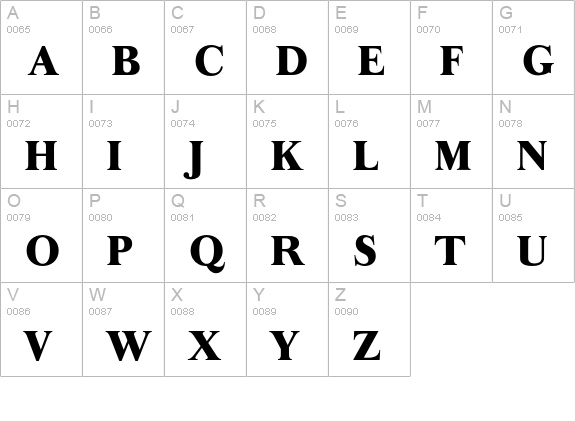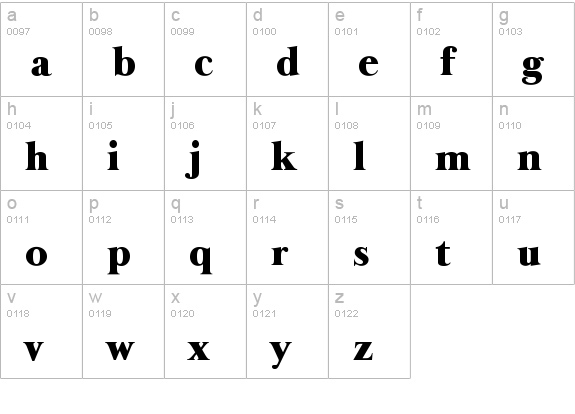
Oldbaskerville-Heavy is a heavy, high-impact variant in the Oldbaskerville typeface family \xE2\x80\x94 well suited to high-impact headlines, posters, and display advertising.
Oldbaskerville-Heavy font is a timeless and classic typeface that exudes elegance and sophistication. With its bold and sturdy letterforms, this font is perfect for making a bold statement in your design projects. Whether you're creating posters, logos, or branding materials, Oldbaskerville-Heavy will add a touch of vintage charm to your work. Best of all, Oldbaskerville-Heavy font is completely free to download at FontsMarket.com. You can easily add this versatile font to your collection without any cost, making it a valuable resource for any designer or creative professional. Don't miss out on the opportunity to enhance your projects with the timeless beauty of Oldbaskerville-Heavy font. Download it today and start creating stunning designs that stand out from the rest.